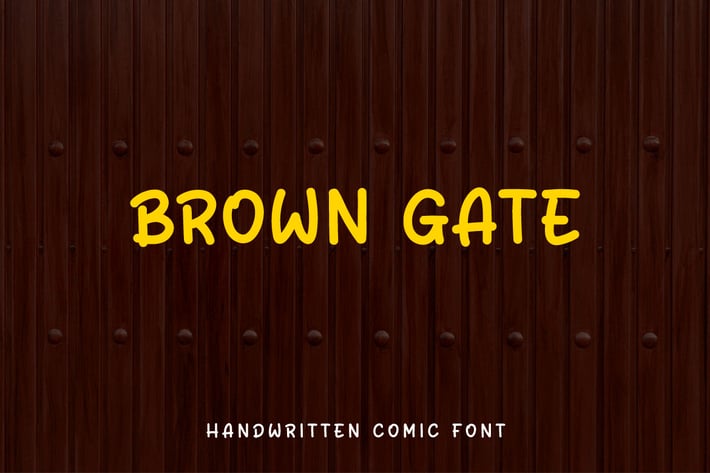
Brown Gate - Handwritten Comic Font
Hello! Brown Gate is a handwritten comic font.
Brown Gate can be used in any works such as comic book, poster, school, flyer, book title, advertisement, social media content, logo and many more.